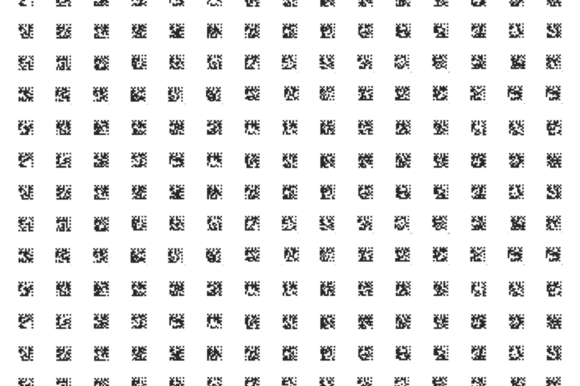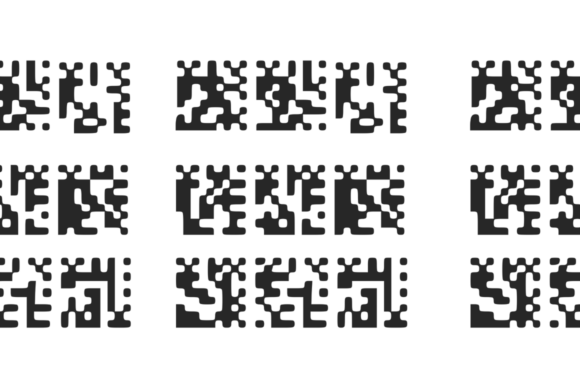
Datamatrix Font
About Datamatrix Font
Introducing “Datamatrix,” a powerful dingbats font that includes a comprehensive set of glyphs to present 2D QR codes. These QR codes are comprised of black and white modules arranged in a compact square pattern, allowing for the encoding of various types of data, such as URLs, text, contact information, and more.
With “Datamatrix,” you can easily generate and incorporate QR codes into your designs, whether they are for retail, web, or tech-related projects. The font provides a convenient way to create visually appealing QR codes without the need for external software or complex encoding algorithms.
The compact square pattern of the QR codes ensures that they can be easily scanned by mobile devices and QR code readers, making it ideal for linking customers to websites, providing additional product information, or facilitating quick and convenient access to digital content.
Using “Datamatrix” is simple. Each character within the font represents a unique QR code module, with the black and white arrangement accurately reflecting the pattern required for successful scanning. By typing out the desired text or data using the appropriate characters, you can instantly generate QR codes that can be seamlessly integrated into your designs.
“Datamatrix” offers versatility in its applications. Whether you’re designing packaging for a retail product, creating digital marketing materials, or incorporating QR codes into web interfaces, this dingbats font provides an efficient and visually appealing solution.
By utilizing the power of “Datamatrix,” you can enhance the functionality and user experience of your projects, while maintaining a visually appealing and modern aesthetic. The ease of use and convenience of this dingbats font make it a valuable tool for designers, marketers, and developers alike.
So, embrace the power of QR codes with “Datamatrix” and unlock new possibilities in retail, web, or tech craft projects. Whether you’re looking to provide quick access to information, enhance user engagement, or streamline customer interactions, this font will help you incorporate 2D QR codes seamlessly and effortlessly.
Let “Datamatrix” be your go-to dingbats font for creating visually stunning and functional QR codes. Explore the possibilities it offers for retail, web, or tech craft projects, and witness how it transforms the way you connect with your audience and share information.